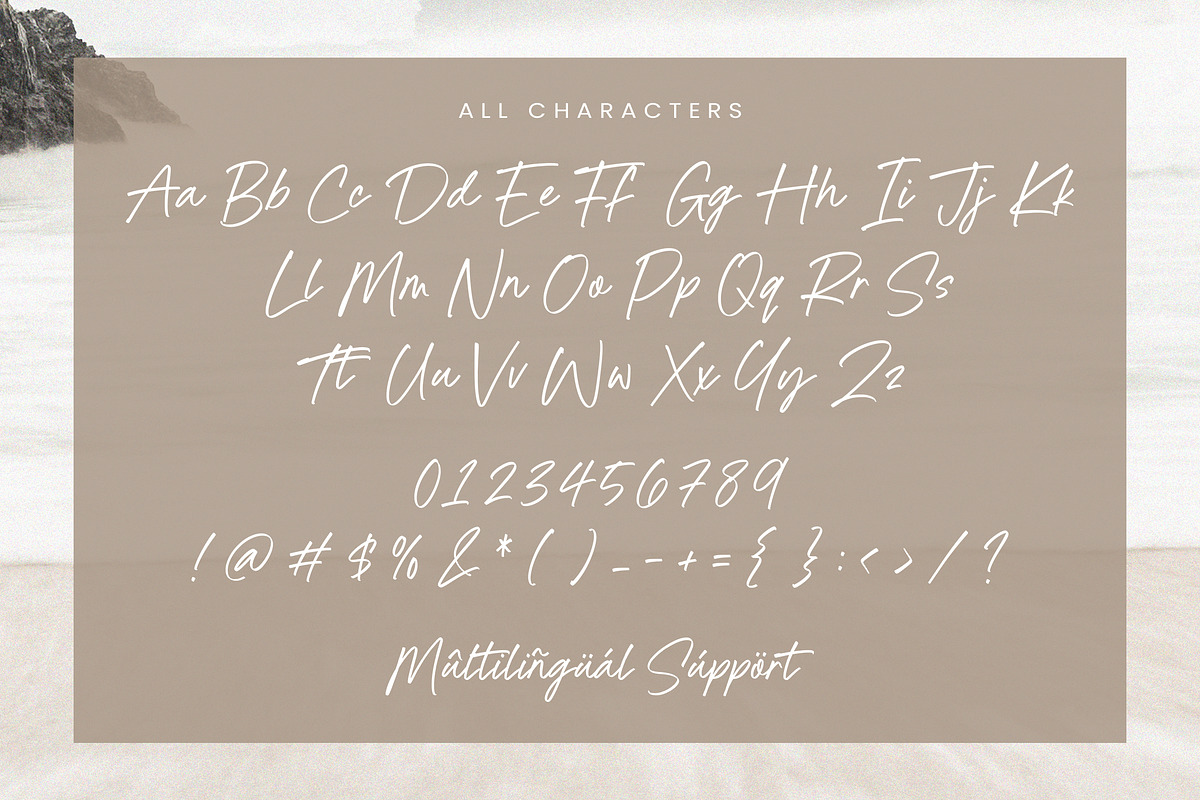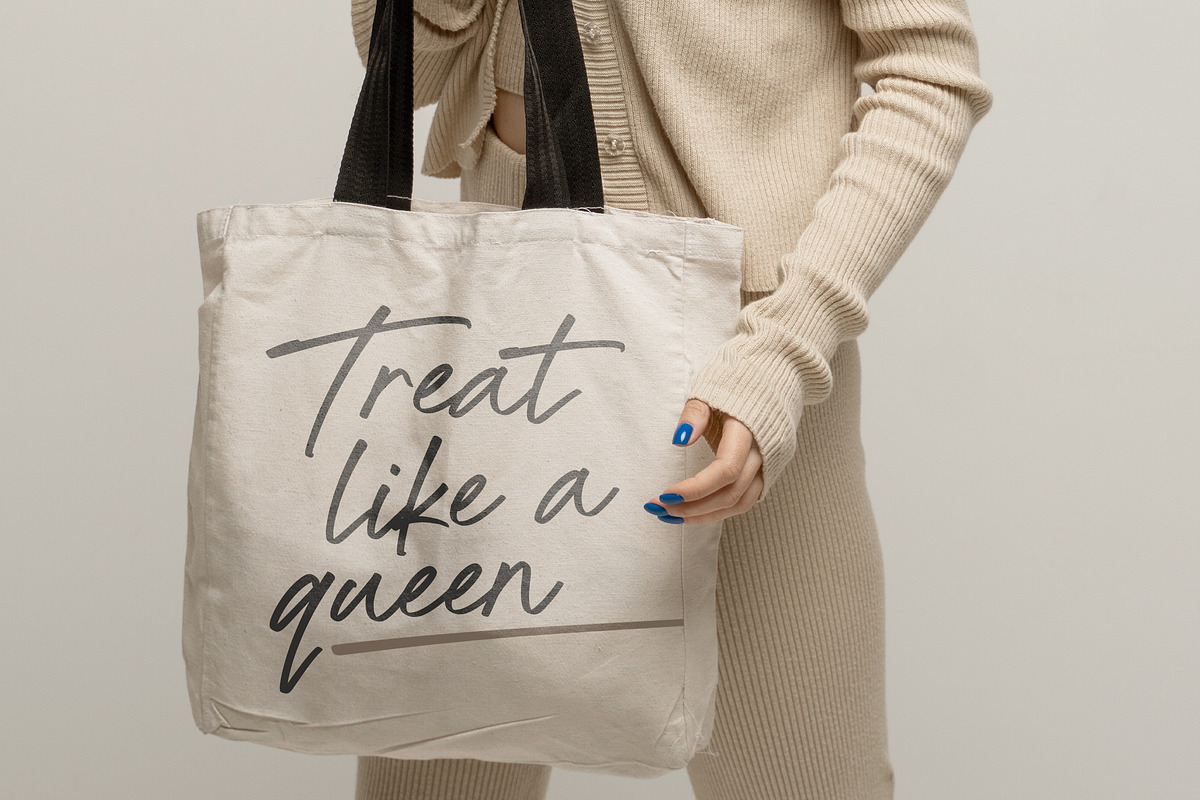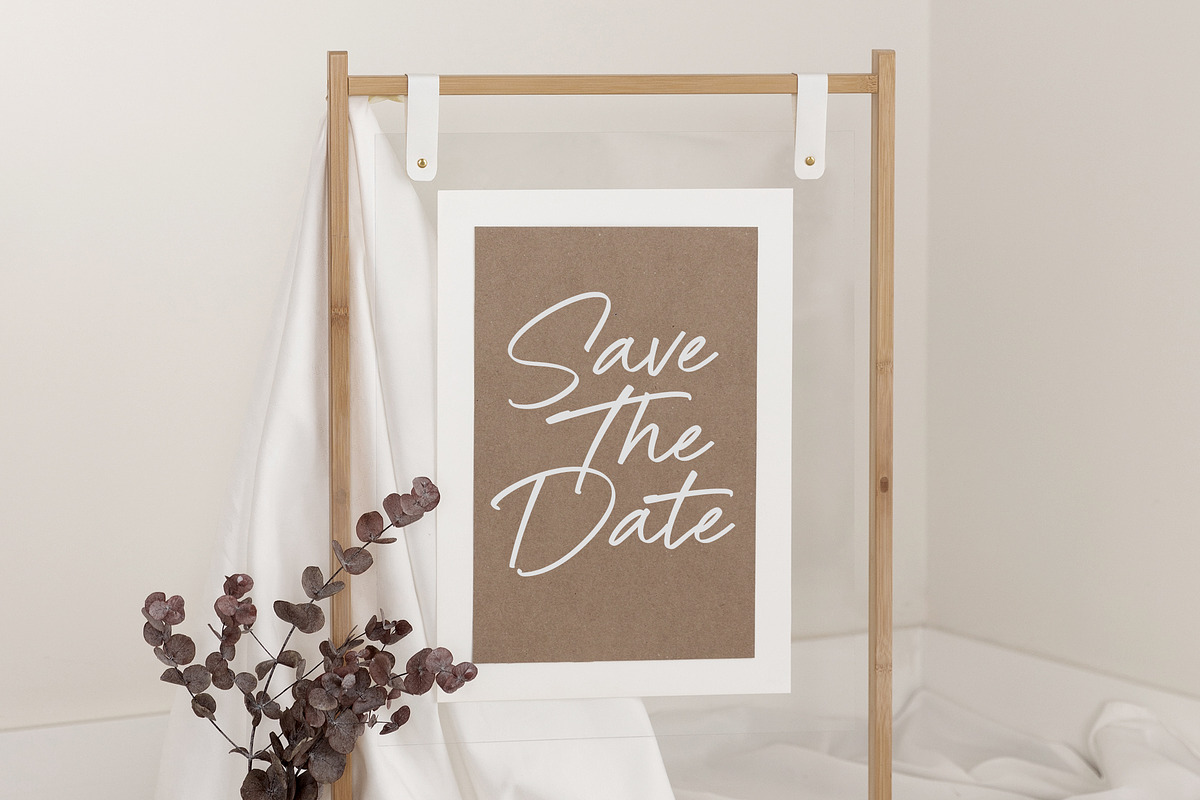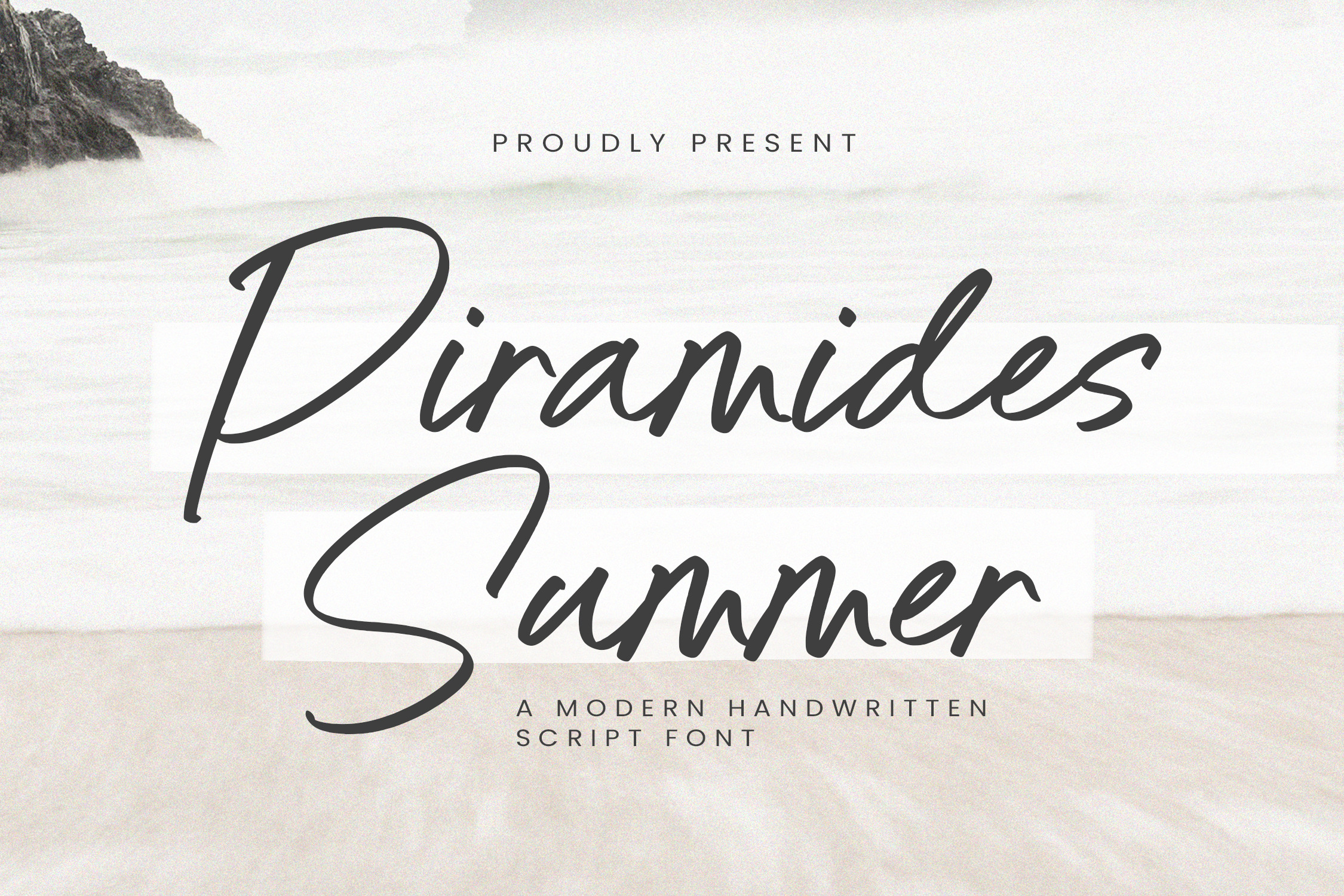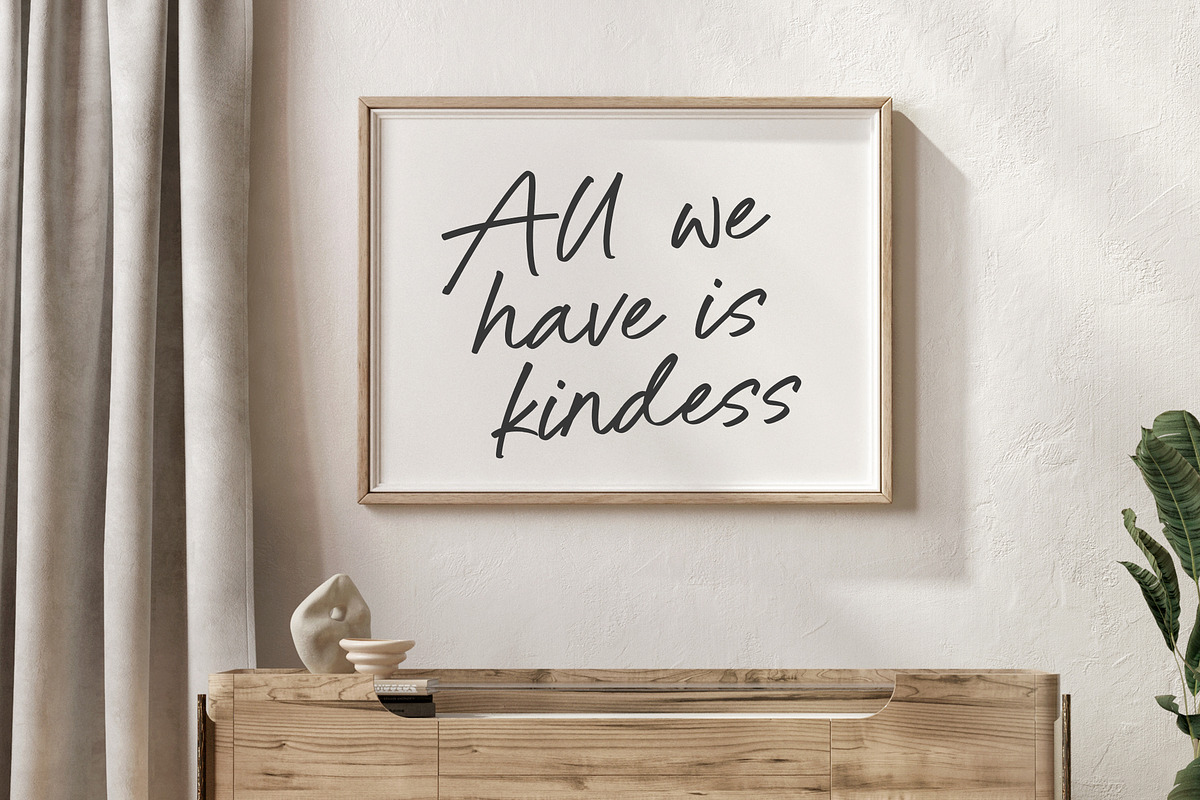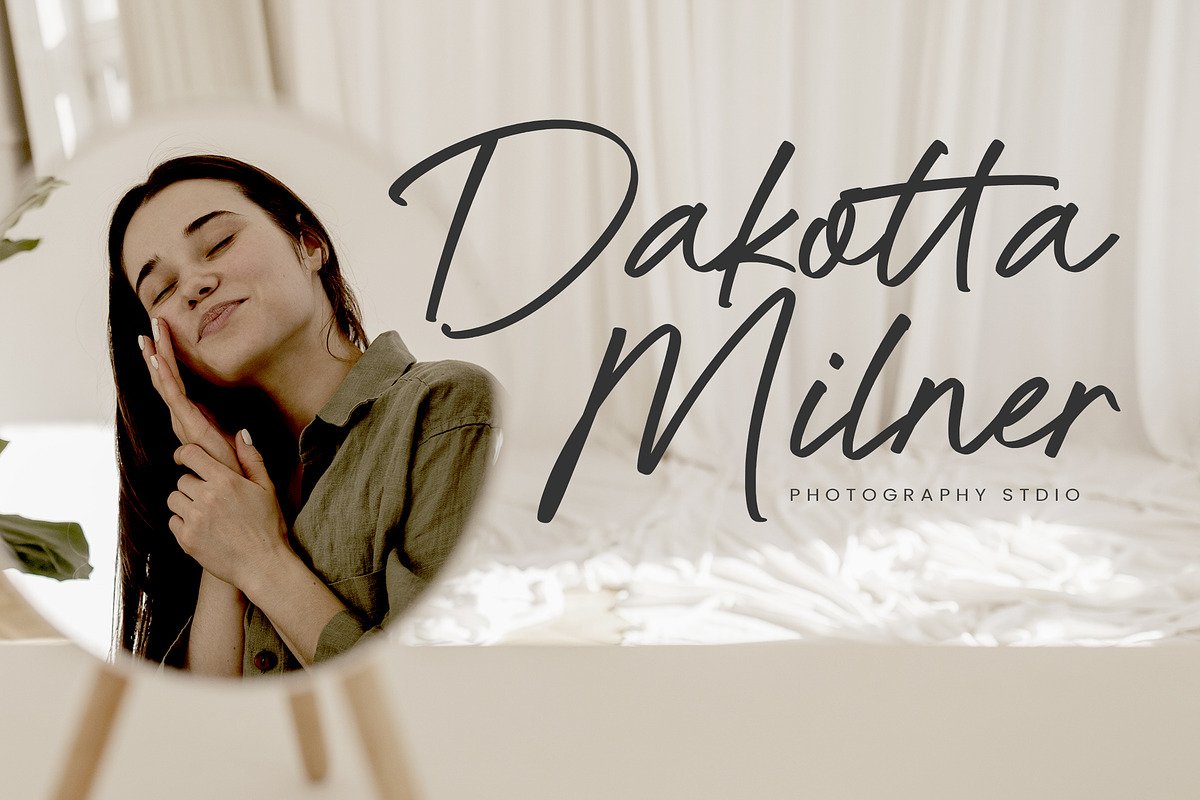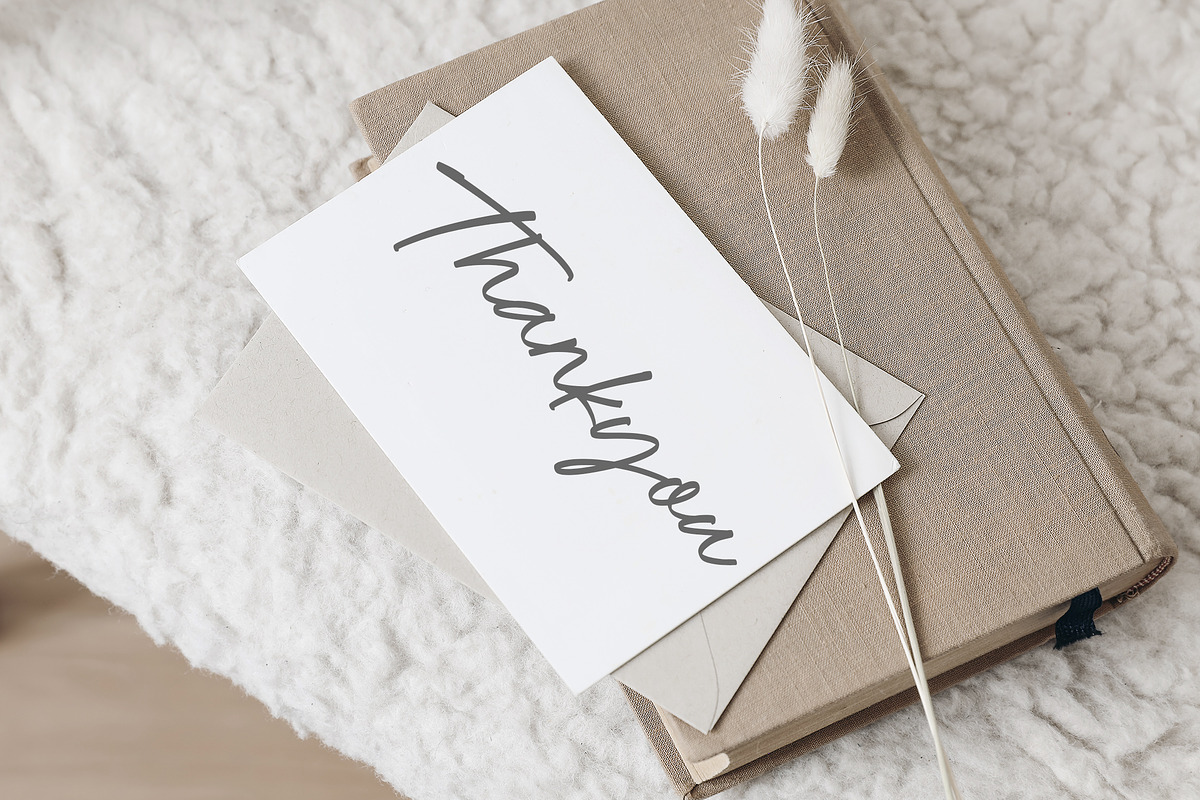
Piramides Summer Font
Introduced by Timurtype Studio!
Piramides Summer is a Modern Handwritten Script Font
This font is a trendy and contemporary choice for your design projects. With its sleek and edgy letterforms, this font captures the essence of modern design. The sharp strokes and geometric elements give the Piramides Summer font a bold and dynamic aesthetic, perfect for adding a stylish and modern touch to your branding materials, logos, and advertising campaigns. Whether you’re aiming for a minimalist and clean look or a chic and high-fashion vibe, the Piramides Summer font offers versatility and sophistication. Embrace the modern energy of the Piramides Summer modern handwritten script font and elevate your designs to the next level.
Piramides Summer Font also supports multilingualism.